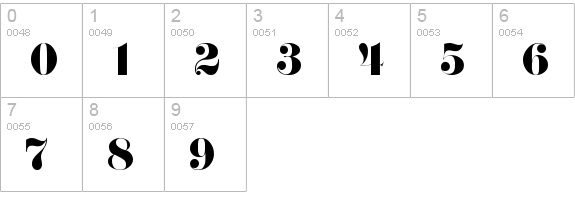
NewDawne-Normal Font Details
NewDawne-Normal is the standard, neutral variant in the NewDawne typeface family \xE2\x80\x94 well suited to general body text, paragraphs, and standard typographic work.
Introducing NewDawne-Normal font, a versatile and modern typeface designed to enhance your projects with style and sophistication. This elegant font features clean lines and a balanced structure that make it perfect for a wide range of design applications. Whether you're working on branding, editorial design, web design, or any other creative project, NewDawne-Normal font will add a touch of class and professionalism. What sets NewDawne-Normal font apart is not only its sleek design but also the fact that it is completely free to download. That's right, you can access this premium font at no cost, making it a valuable addition to your font library without breaking the bank. Simply head over to FontsMarket.com to download NewDawne-Normal font and start using it in your projects today. With its timeless appeal and versatile nature, NewDawne-Normal font is sure to elevate your designs and help you stand out from the crowd. Don't miss out on this fantastic opportunity to enhance your creative work with a high-quality font that won't cost you a dime. Download NewDawne-Normal font now and take your designs to the next level!